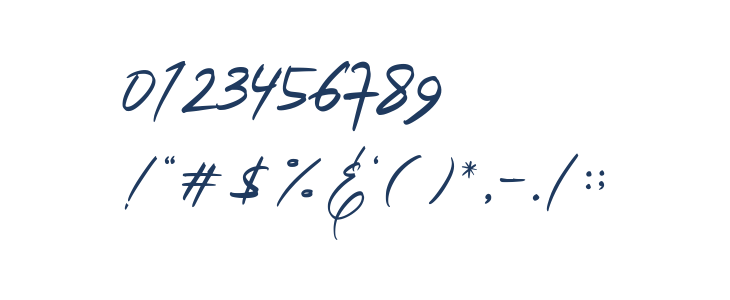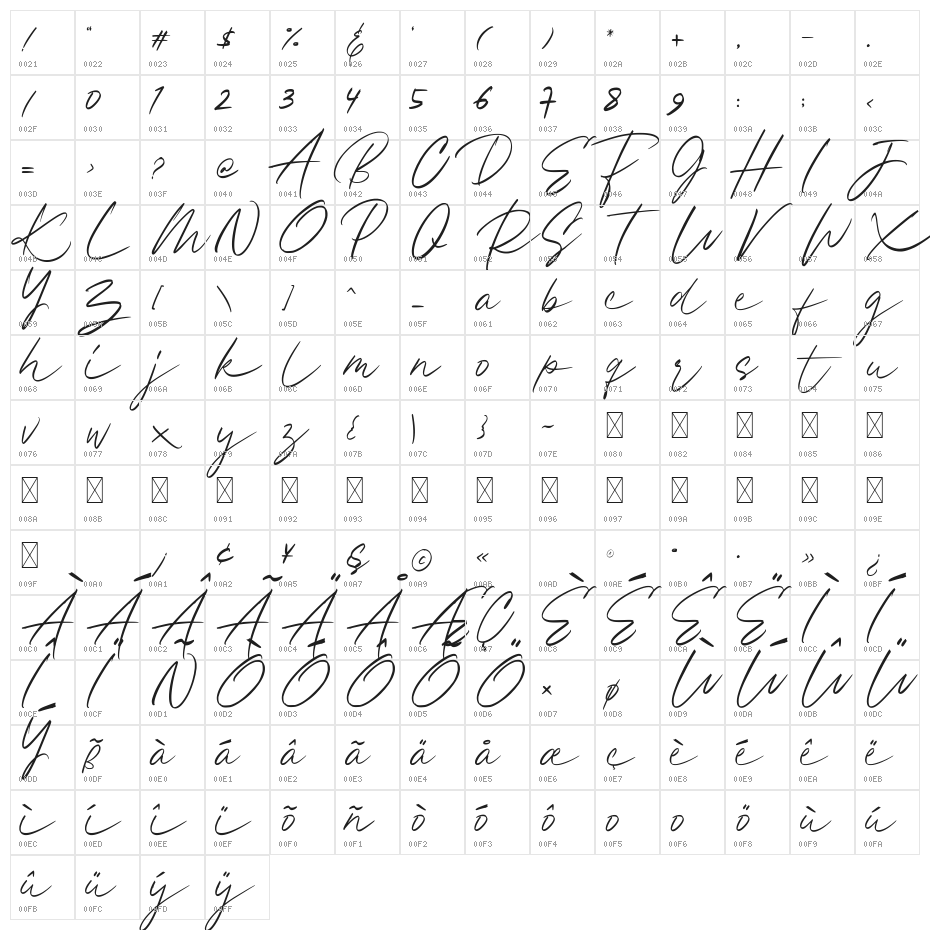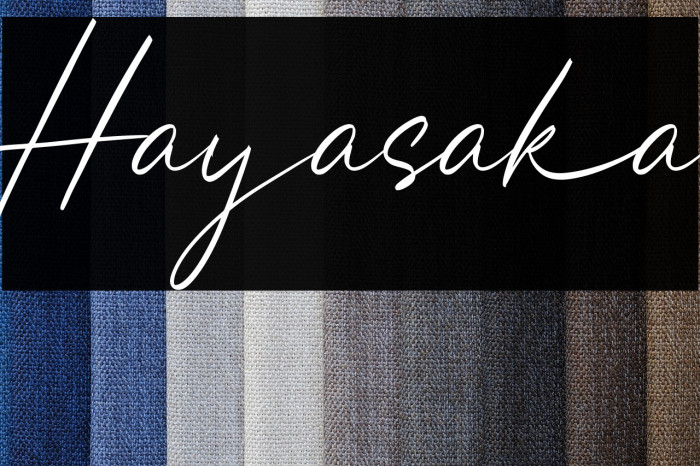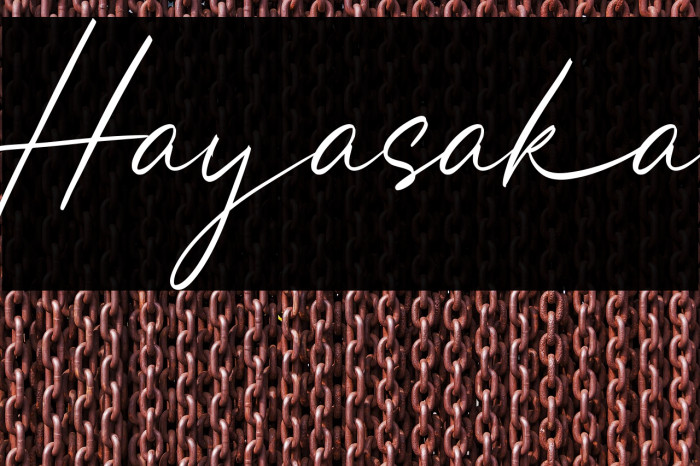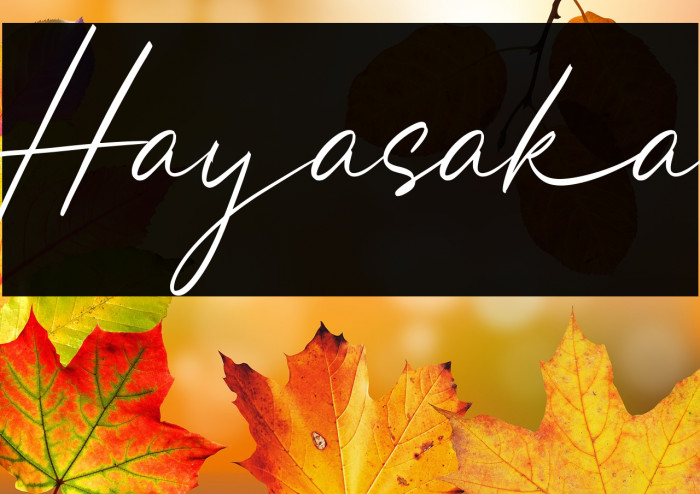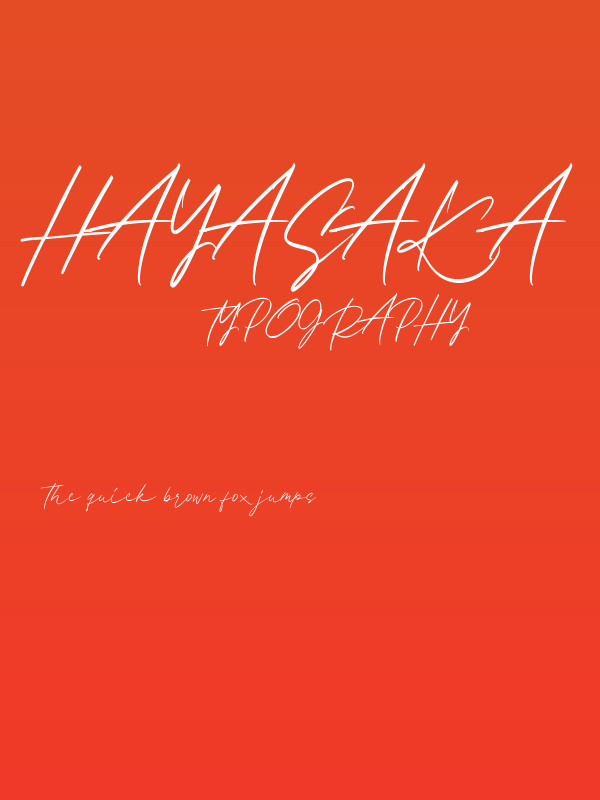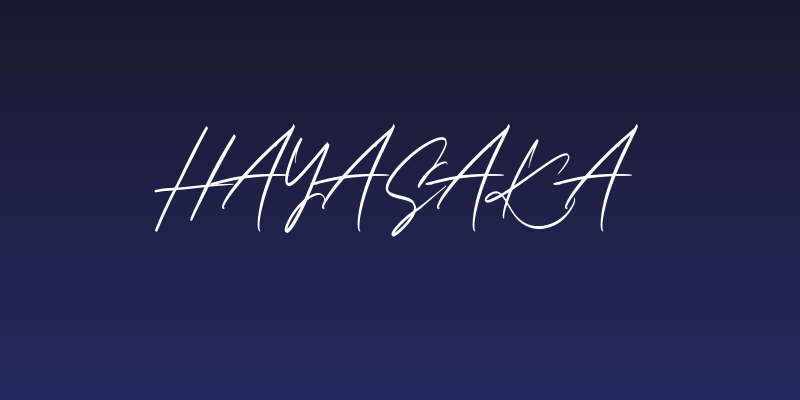
Hayasaka Font
Hayasaka Description
This font exhibits a fluid, cursive style that mimics natural handwriting with a modern twist. The uppercase letters are elegantly elongated with smooth, flowing lines, while the lowercase letters maintain a consistent, connected script that enhances readability. The numerals are bold and slightly more structured, providing a nice contrast to the letters. Special characters are seamlessly integrated, maintaining the overall aesthetic. This font's design is both sophisticated and approachable, making it versatile for various applications.
| Proposed Projects | Ideal for wedding invitations, personal branding, greeting cards, and elegant packaging designs. |